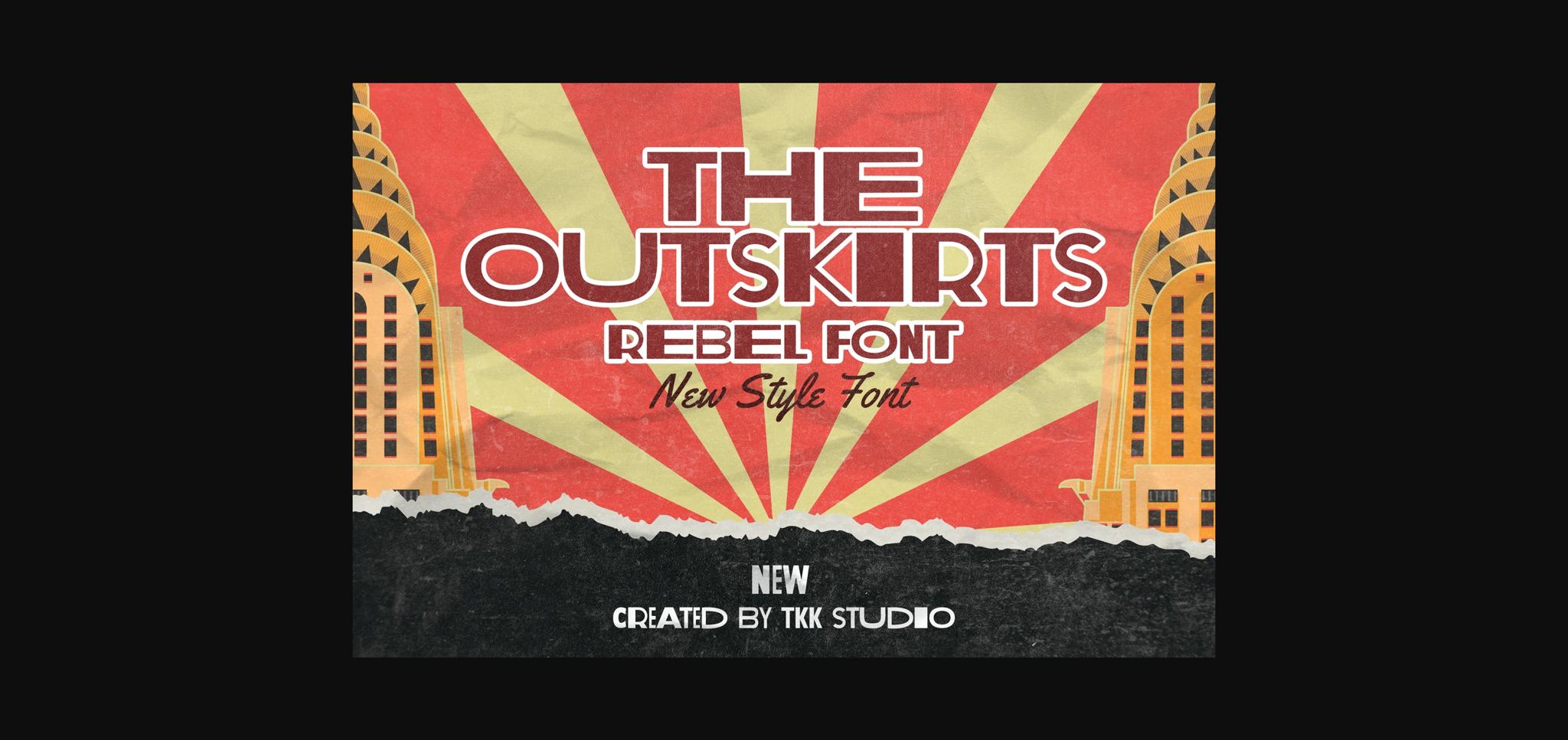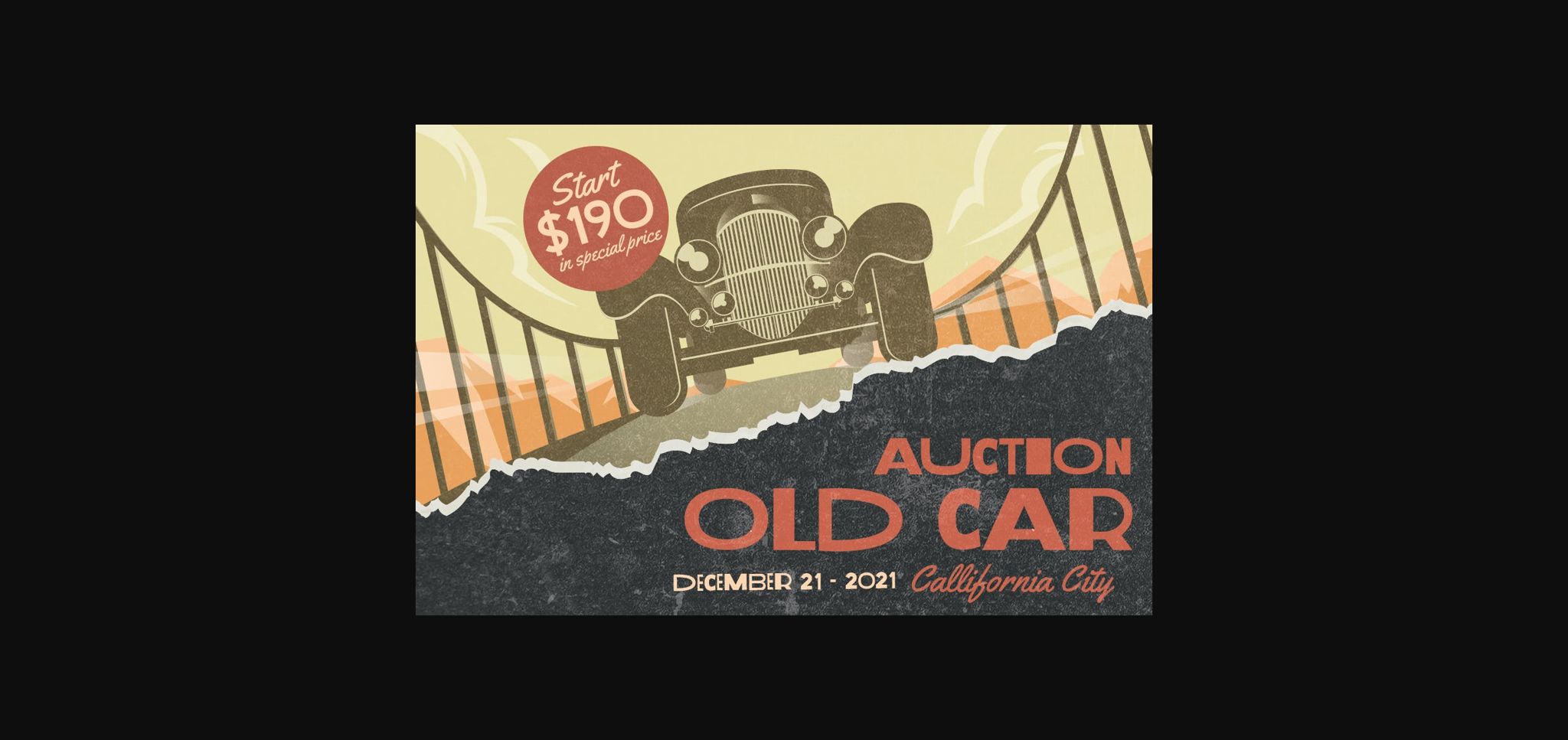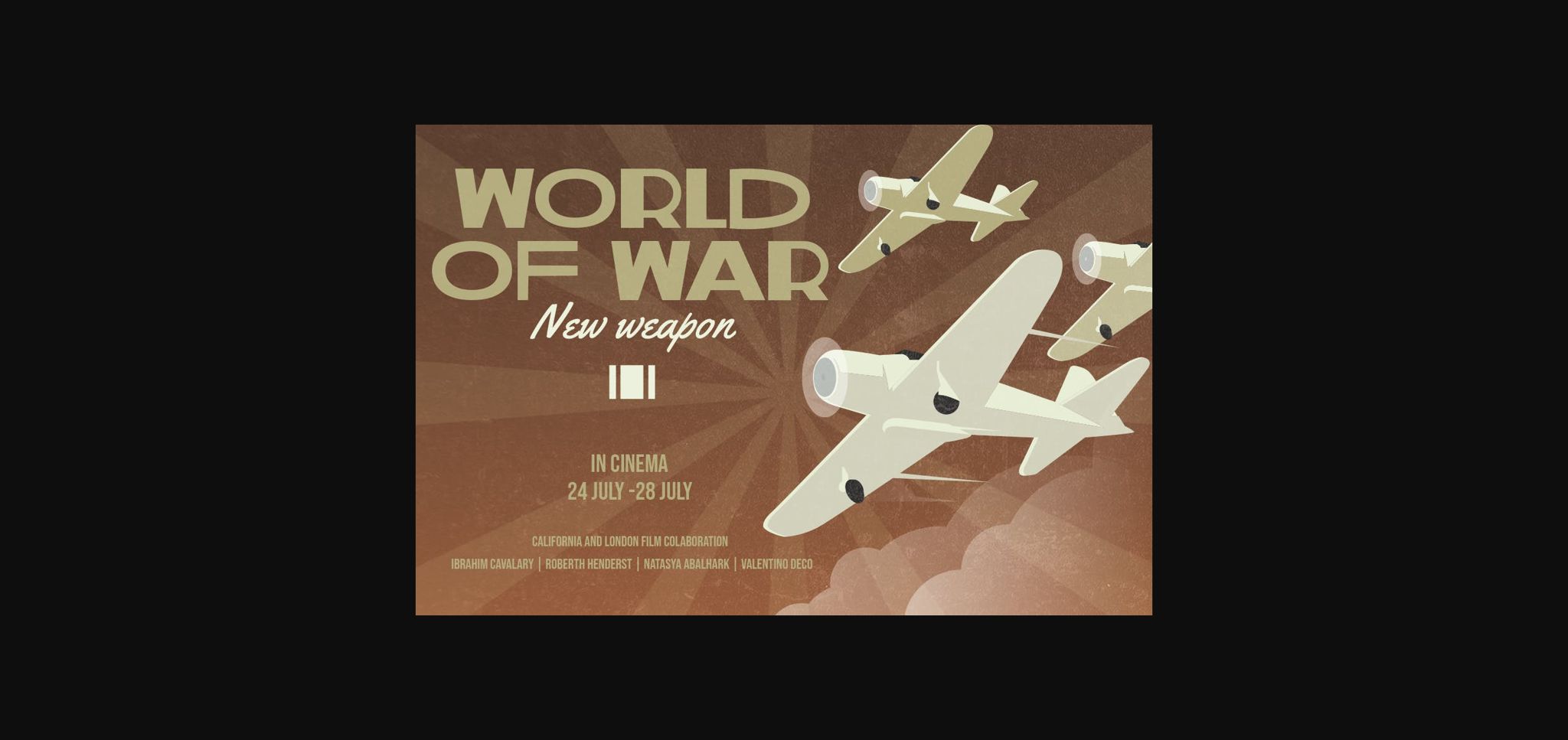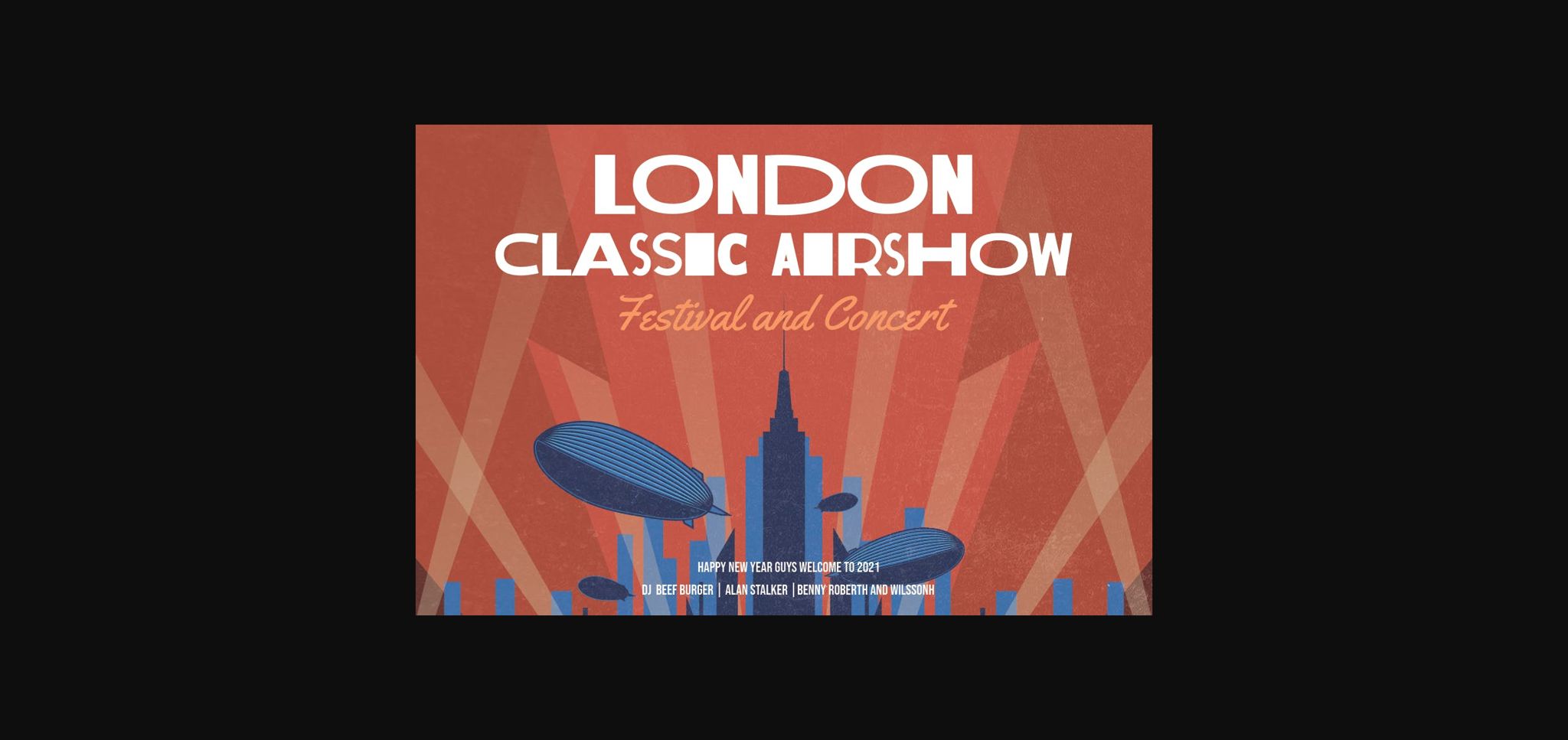
About The Outskirts Font
The Outskirts is a cool and interestingly lettered sans serif font. No matter the topic, this font will be an incredibly asset to your fonts’ library, as it has the potential to elevate any creation.